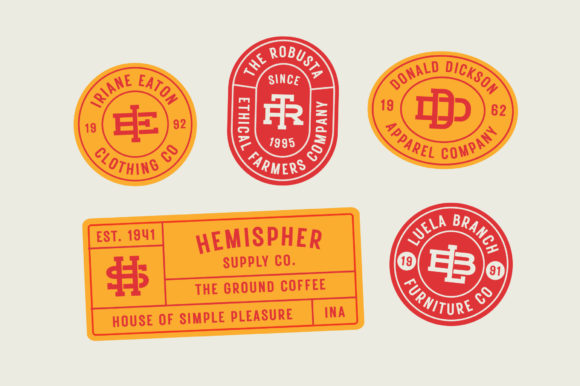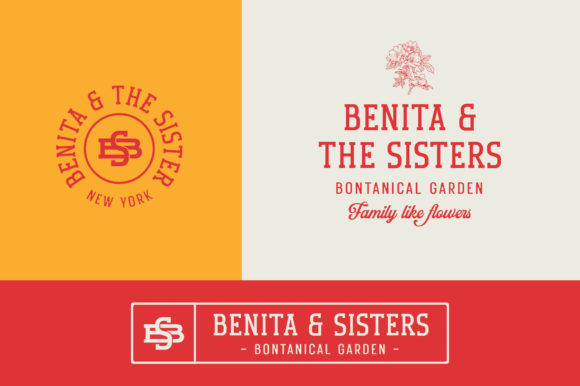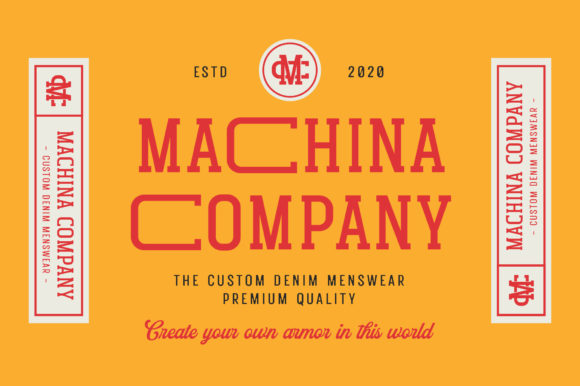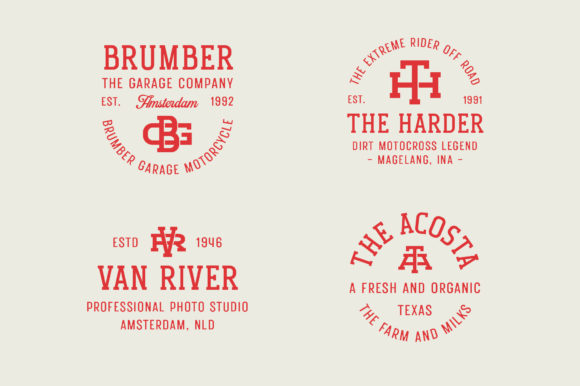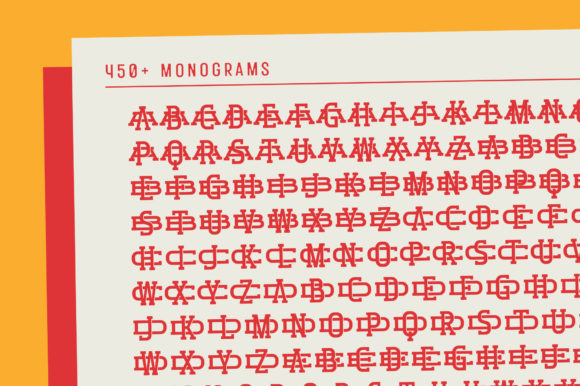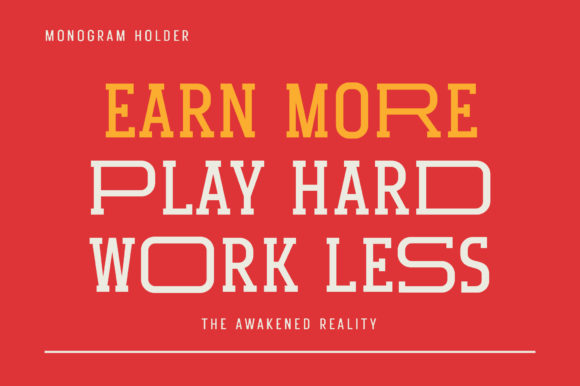
Introduction to Monogram Holder Font
Have you ever stared at a blank canvas, a blank piece of paper, or a blank screen, waiting for that perfect spark of creativity to strike? For designers, this moment is all too familiar. It’s the moment when everything comes together, and a beautiful, high-quality design is born. And for those who are looking to elevate their creative project, the right font can make all the difference.
Enter the Monogram Holder Font, a stunning, vintage styled serif font that’s sure to bring a touch of elegance to any design. With its PUA encoded features, you’ll have access to all the glyphs and swashes you need to create a truly unique and eye-catching design. Whether you’re working on a personal project or a commercial design, this font is a valuable resource that’s sure to become a trusted companion in your design journey.
Key Features of Monogram Holder Font
- High-quality design: The Monogram Holder Font is a premium design resource ideal for creative projects that require a unique and elegant touch.
- Customizable: The Monogram Holder Font can be easily customized to fit your specific design needs, making it a versatile design resource.
- Unique monogram design: The font features a unique monogram design, perfect for creating custom monograms, logos, and other design elements.
Honest Review: Monogram Holder Font
- High-quality design: The Monogram Holder Font is incredibly detailed and refined, making it perfect for any high-end project.
- Easy to use: The font is easy to customize and manipulate, even for those with limited design experience.
- ⚠️ Limited character set: The font only comes with a limited set of characters, which may not be ideal for projects that require a wide range of characters.
- ⚠️ Not suitable for small text: The font is best used for larger text, as it can become difficult to read at smaller sizes.
Overall, I’m thoroughly impressed with the Monogram Holder Font. Its high-quality design and ease of use make it an excellent addition to any design resource. While it may have some limitations, I believe it’s a must-have for any serious designer looking to elevate their creative projects. ✨
Monogram Holder Font
Introduction to Monogram Holder Font
The Monogram Holder Font is a versatile and elegant design resource perfect for creating high-quality, unique and personalized elements in various creative projects. With a transparent background, this font can be easily integrated into your designs without any hassle.
Tips for Getting the Most Out of Monogram Holder Font
Here are some tips for getting the most out of the Monogram Holder Font: use it in combination with other design elements, experiment with different font sizes and colors, and customize it to fit your brand’s unique style.
Common Use Cases for Monogram Holder Font
The Monogram Holder Font is ideal for a variety of use cases, including: creating custom monograms and logos, designing wedding invitations and stationery, and adding a touch of elegance to your branding materials.